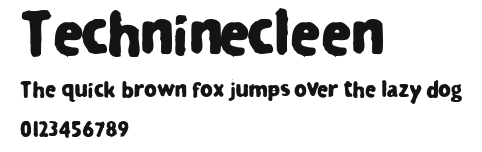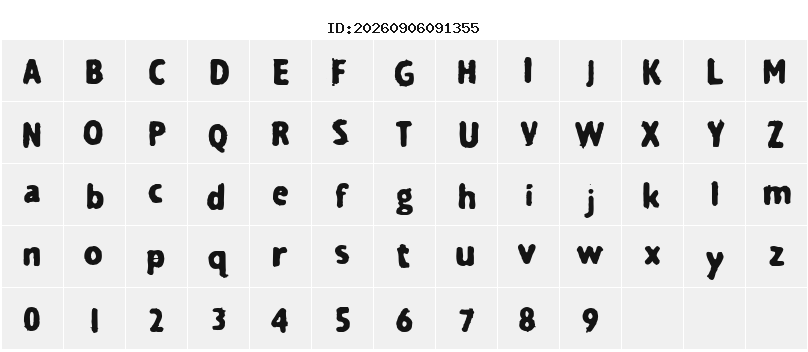
• Font Name: Techninecleen
• Full Font Name: Techninecleen
• PostScript Name: Techninecleen
About Techninecleen.ttf
Techninecleen.ttf is a modern, elegant sans-serif font designed for ultimate readability and visual harmony. Perfect for branding, headlines, web design, and print materials.